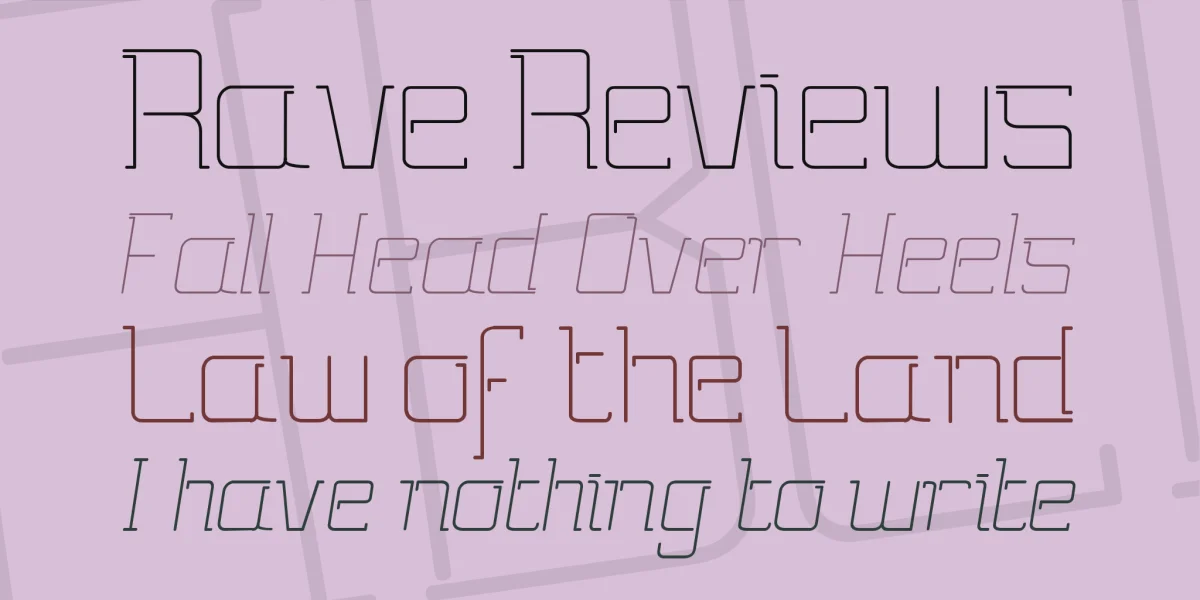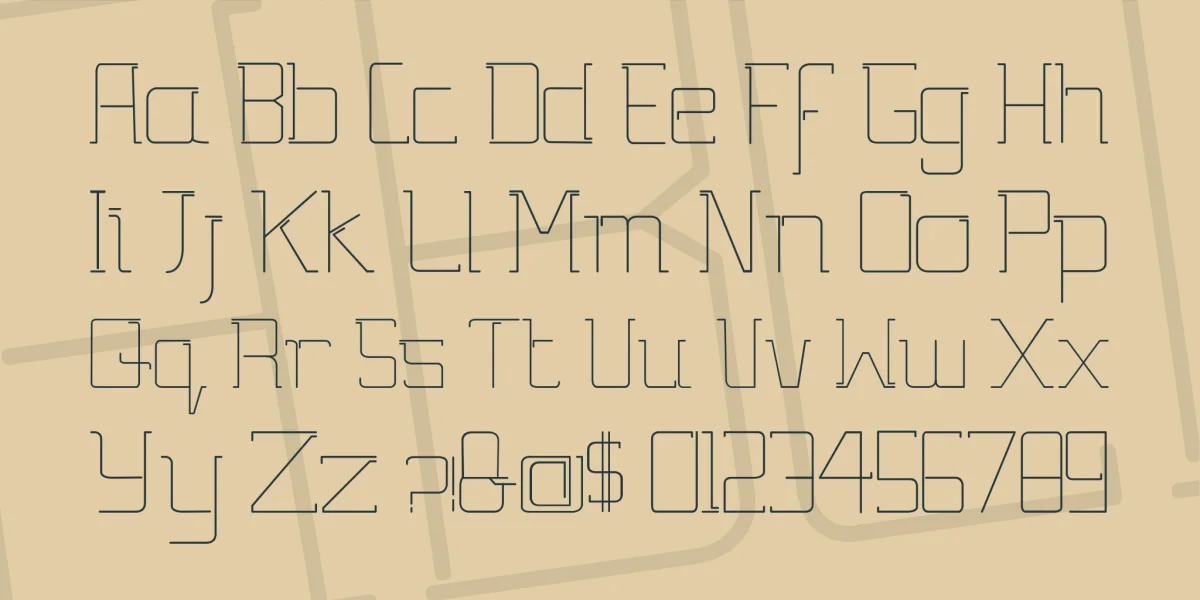
As a designer i really want to make a font which looks very classic yet stylish... a font which can add a certain slickness & feel in any design. Enjoy Gutsy!!!